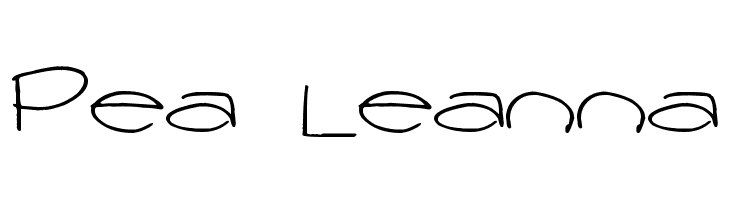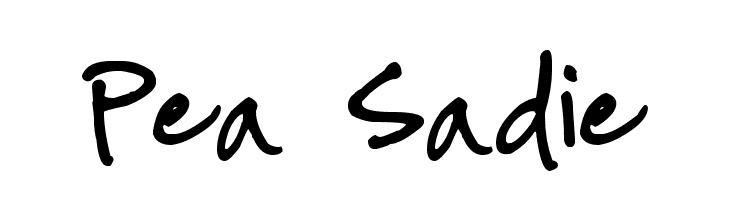
A playful, casual handwritten font with bold, uneven strokes.
A playful, casual handwritten font with an organic flow and uneven strokes.
A playful, casual handwritten font with a lively and spontaneous style.
A playful, casual handwritten font with a personal touch.
A playful, handwritten font with thin, flowing strokes and irregular letterforms.
A casual, handwritten font with bold, dynamic strokes and a playful style.
A playful, handwritten font with a casual and friendly vibe.
A playful, casual handwritten font with a lively and informal style.
A playful, casual handwritten font with bold, expressive strokes.
A bold, playful handwritten font with expressive strokes and a casual feel.